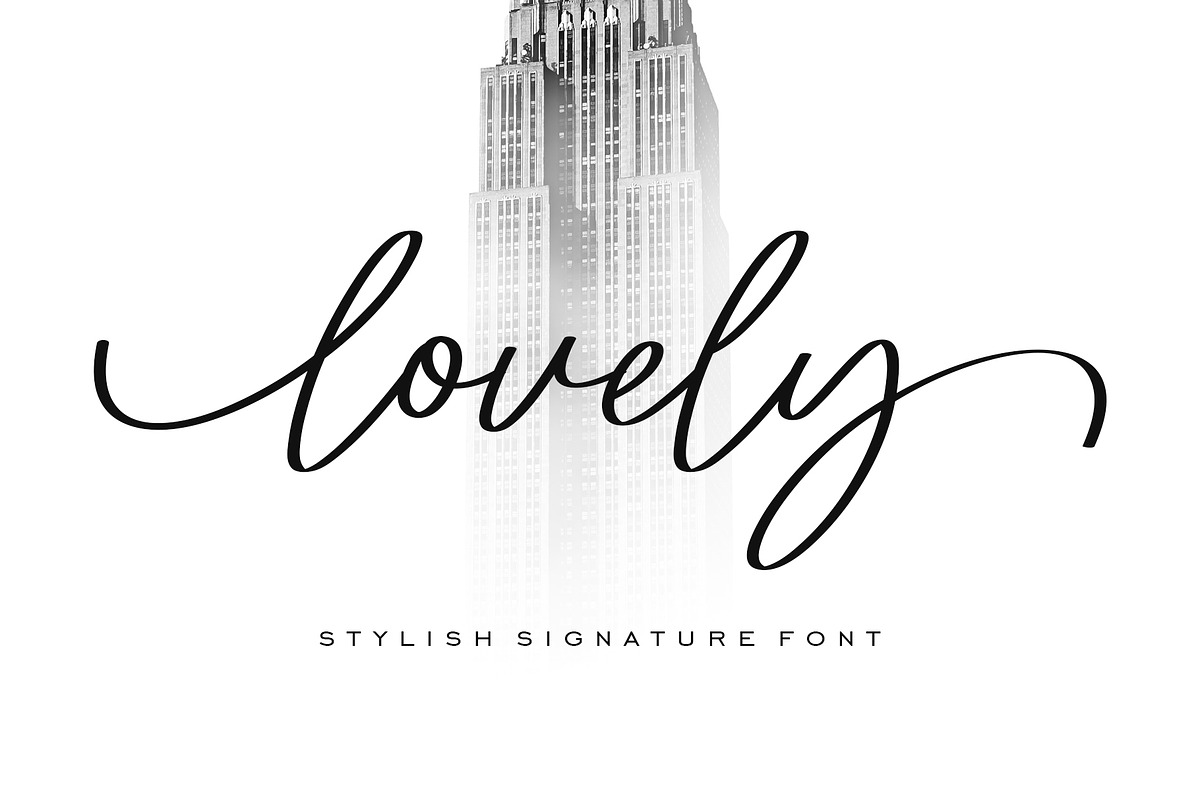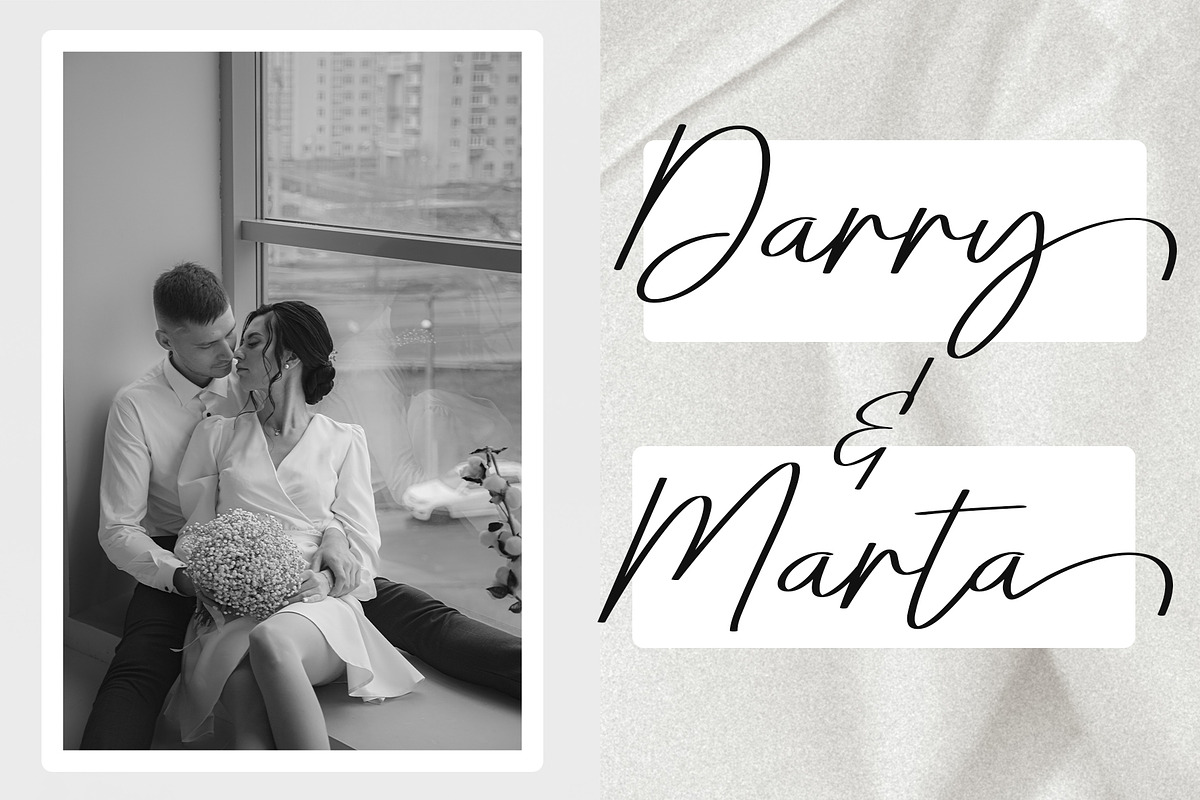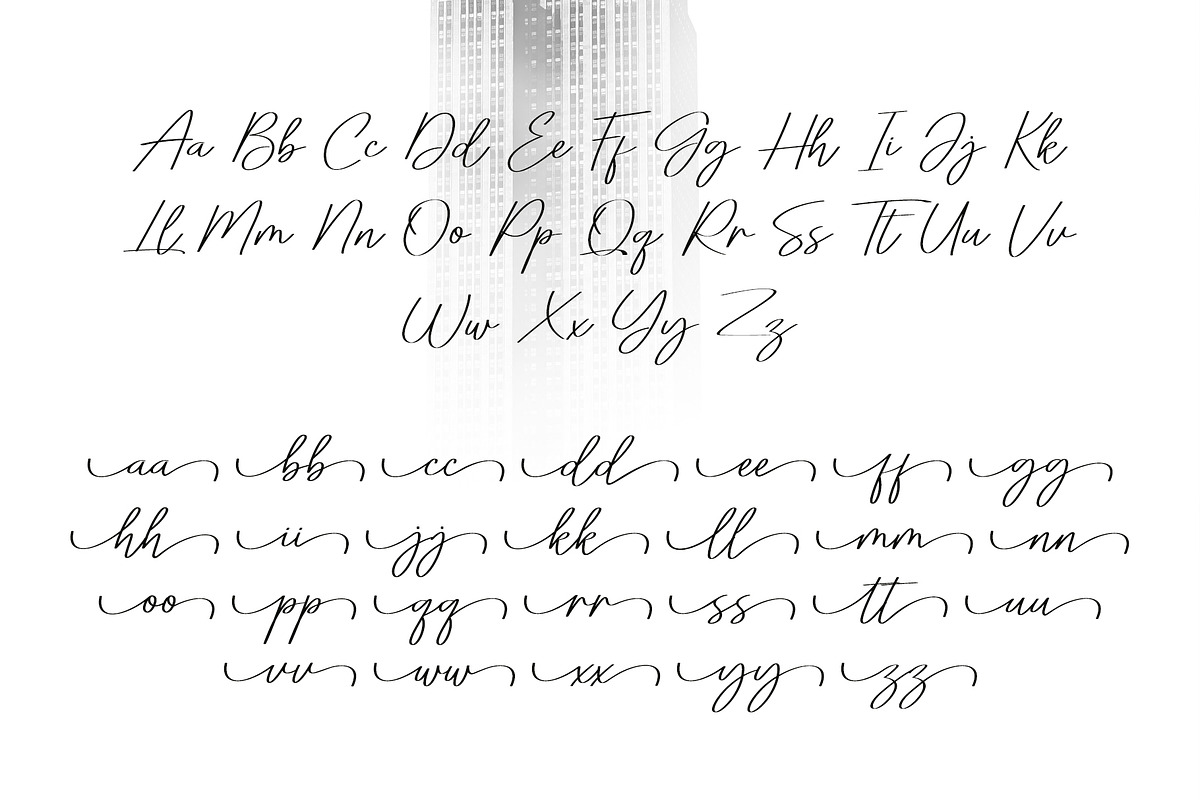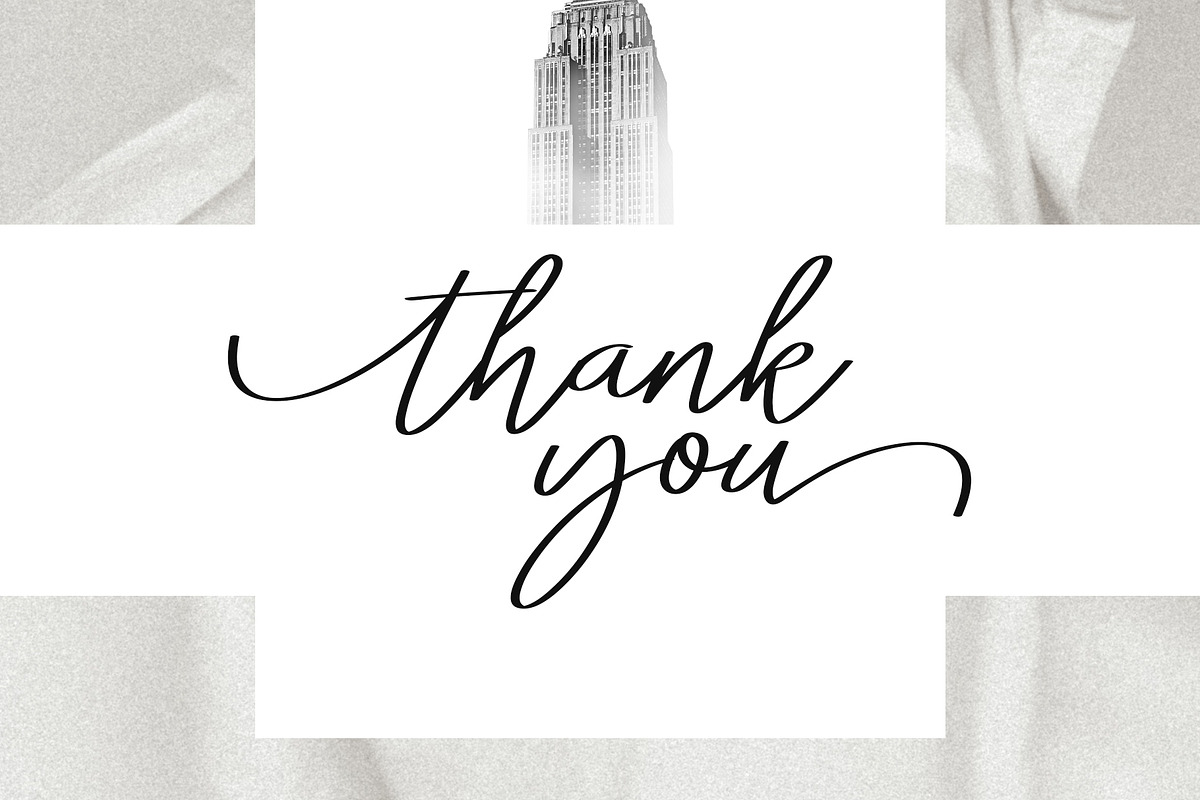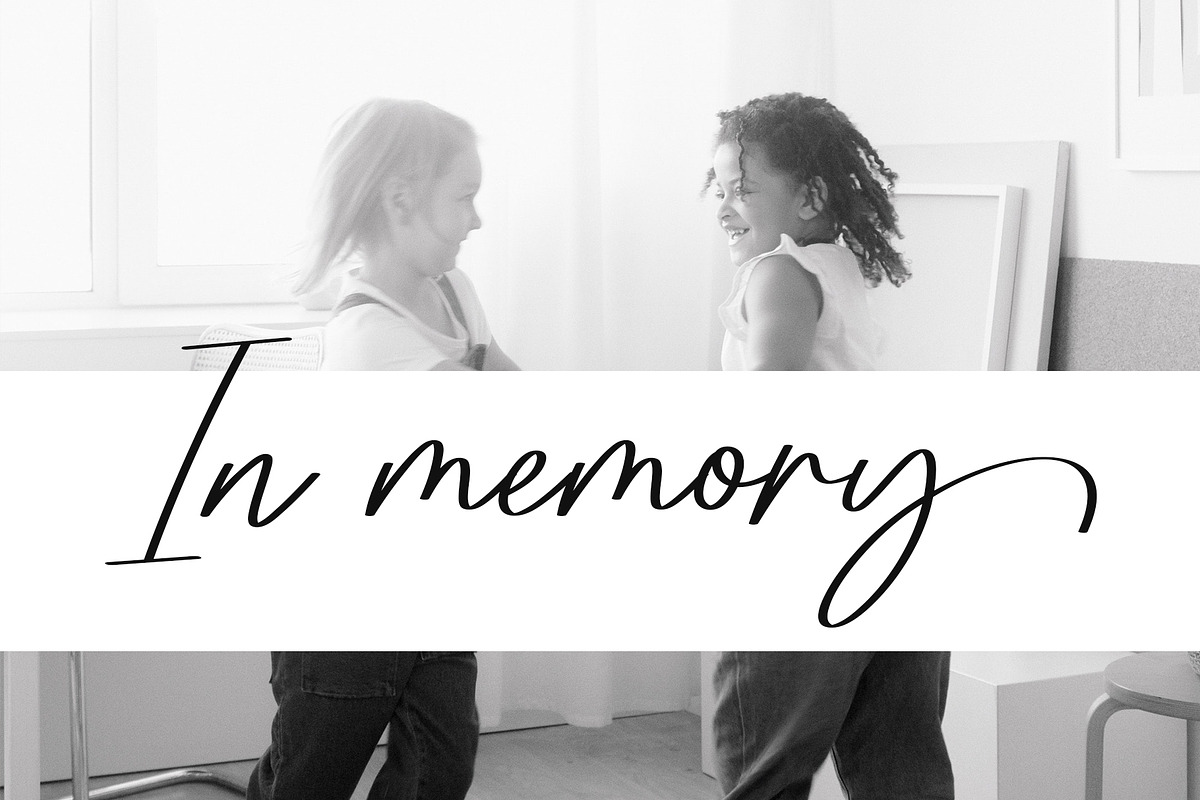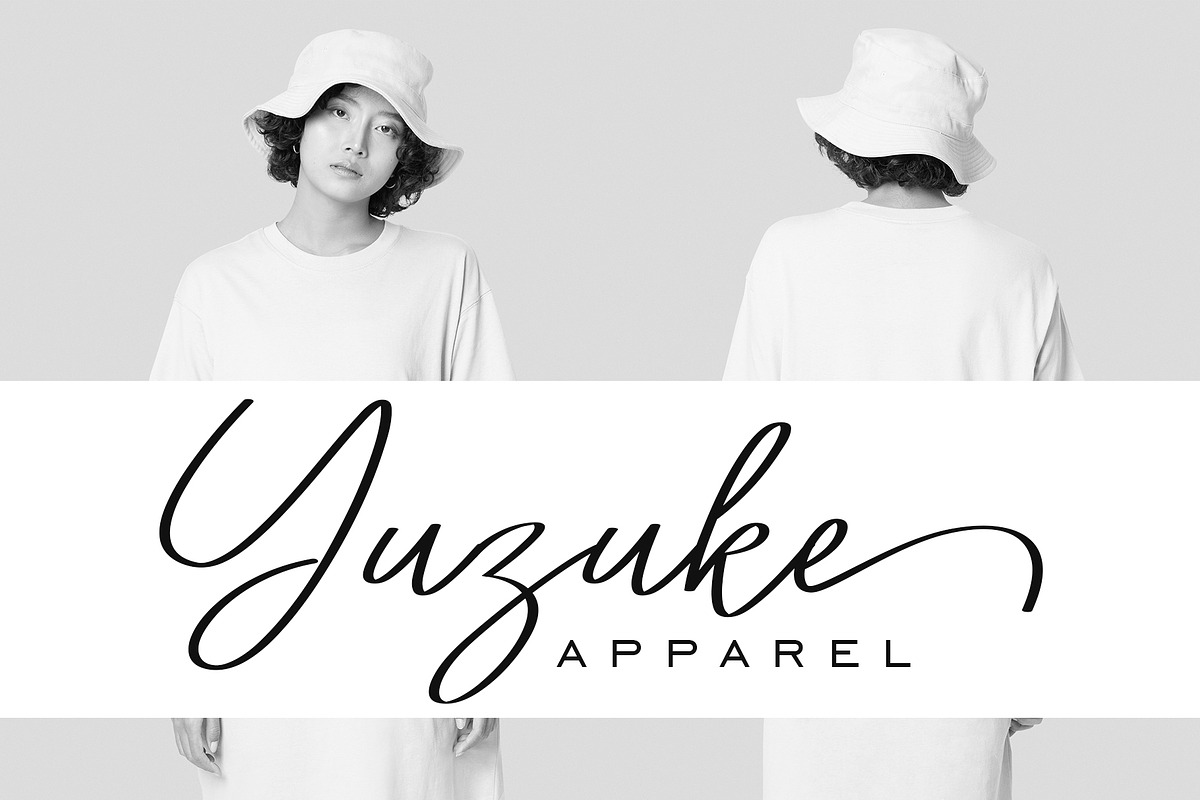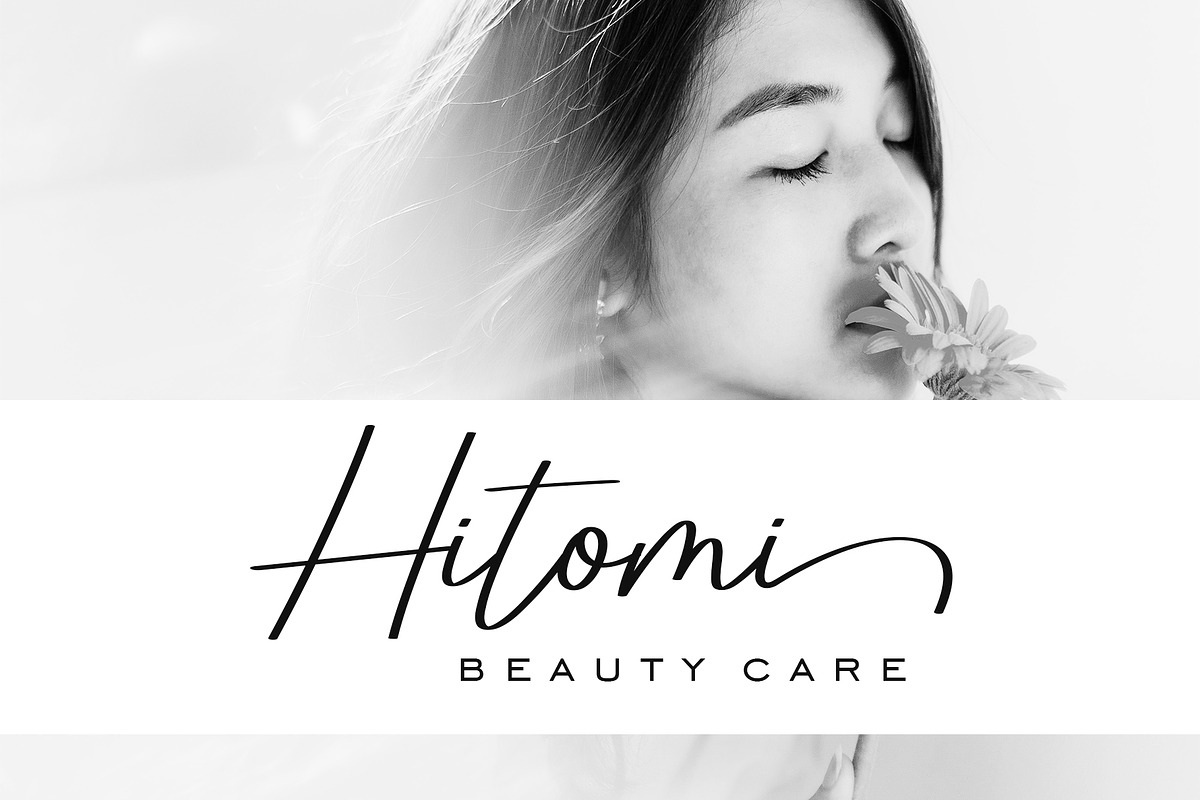
Lovely
Lovely is an elegant and luxurious signature font, inspired by an elegant fusion of style and fashion! very suitable for company names, trademarks, brands, wedding invitations, short story titles and many others!